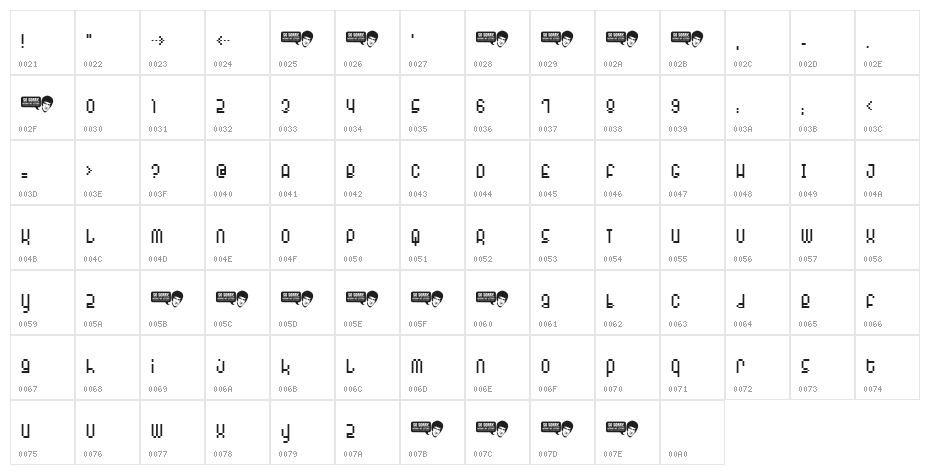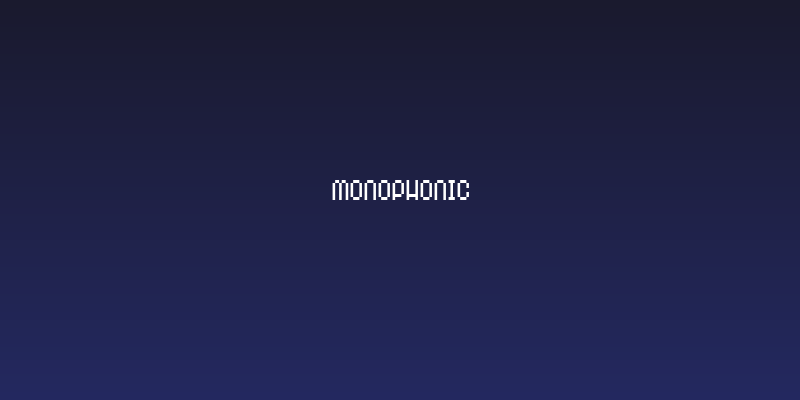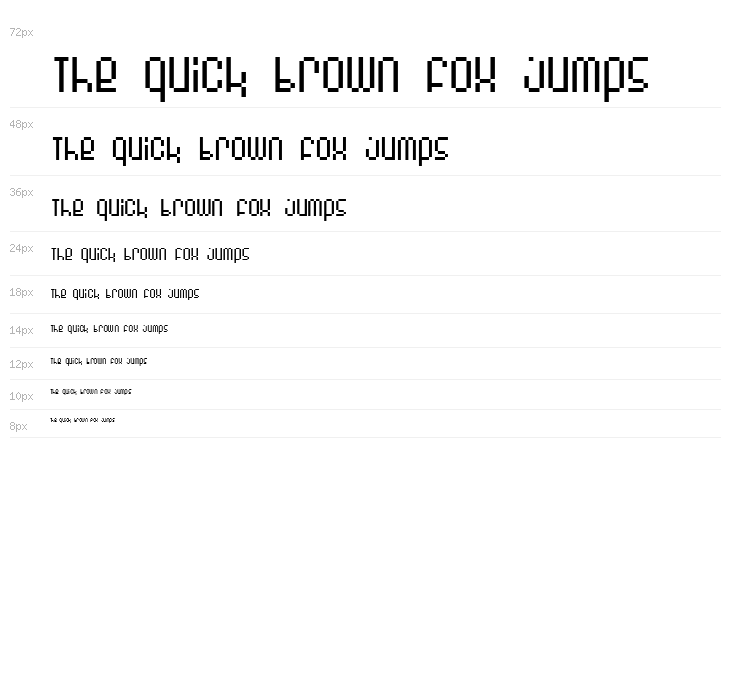
Monophonic Font
Monophonic Description
This font features a monospaced design with a pixelated, retro aesthetic reminiscent of early computer and video game graphics. Each character is uniformly spaced, creating a consistent and orderly appearance. The geometric shapes and blocky structure give it a digital feel, making it ideal for projects that require a vintage or tech-inspired look. The uppercase and lowercase letters maintain a similar height, enhancing its uniformity. Numbers and special characters are clearly defined, adding to its versatility.
| Overall Style | Retro, Digital |
| Use Case | Logos, Coding displays, Digital art |
| Proposed Projects | Ideal for retro video game designs, tech-themed projects, coding displays, and digital art. |